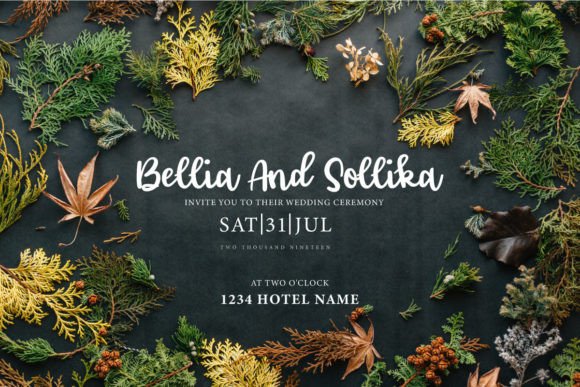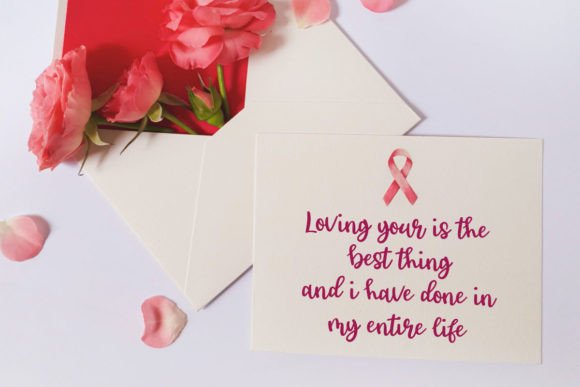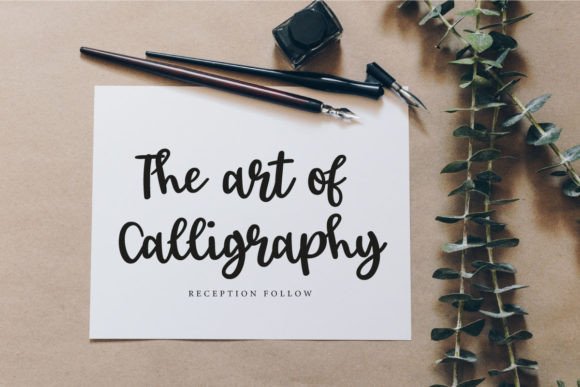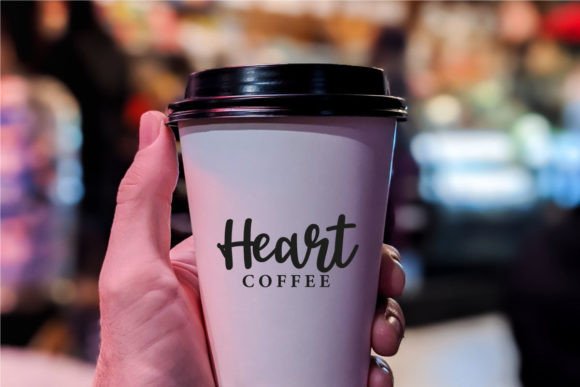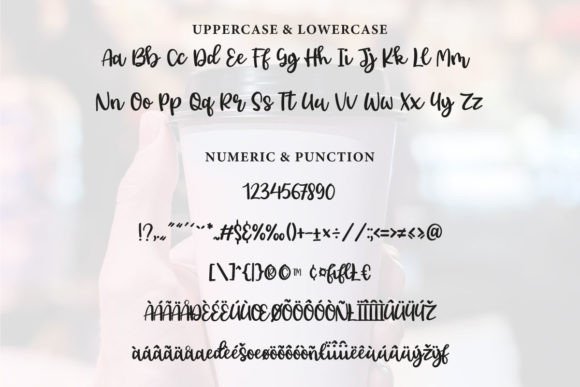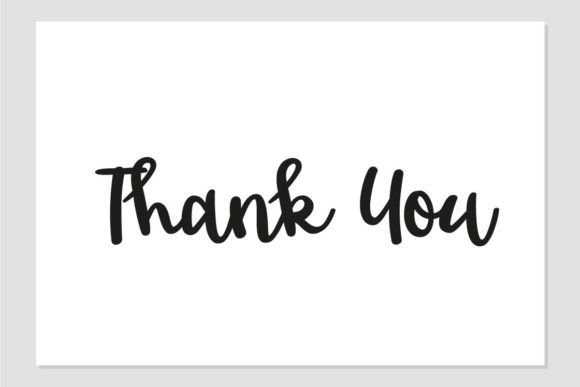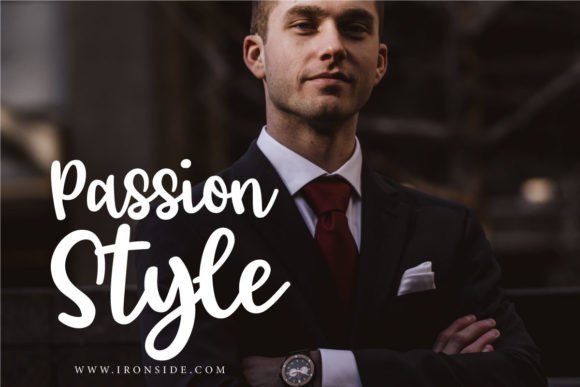
Spirit Font
About Spirit Font
Spirit is a beautiful and bold handwritten font. Use it for wall displays, wedding invitations, social media posts, logos, advertisements, product packaging, product designs, labels, photography, watermarks, invitations, stationery, and any project that requires impressive typography.